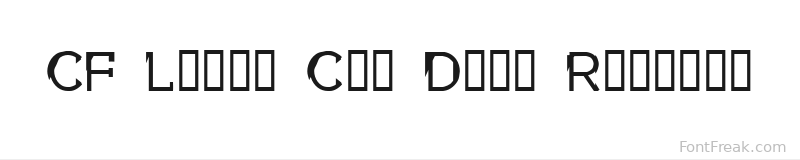
CF Louis Cyr Demo Regular
CF Louis Cyr Demo Regular is a striking display font that merges contemporary style with a touch of classic elegance. Designed by Cloutierfontes, this font showcases a unique serif structure characterized by its prominent stroke weight and moderate contrast. The letters feature clean lines with sharp edges, providing a bold presence that commands attention without overwhelming the viewer. The spacing is balanced, allowing for smooth readability even in larger formats, making it an excellent choice for various design applications.
This versatile font shines in specific use cases, including wedding invitations where its elegant appearance can enhance the romantic theme. It also works beautifully for movie posters, allowing filmmakers to convey drama and excitement through its dynamic presence. Restaurant menus can benefit from its stylish flair, giving dining experiences a sophisticated touch. Additionally, CF Louis Cyr Demo Regular suits branding materials, providing small business owners with a distinctive identity that stands out in a competitive market.
Target audiences for this font include graphic designers looking for a unique typeface to elevate their projects, small business owners who want to create memorable branding, and content creators seeking to make their digital content visually appealing. The font's modern yet timeless design makes it a valuable asset for anyone in the creative field.
What truly makes CF Louis Cyr Demo Regular stand out is its ability to blend modernity with tradition, appealing to a wide range of aesthetics while maintaining its distinctive character. Whether you're designing for print or web, this font offers a free download option that opens up a world of creative possibilities, making it an essential addition to any designer's toolkit.